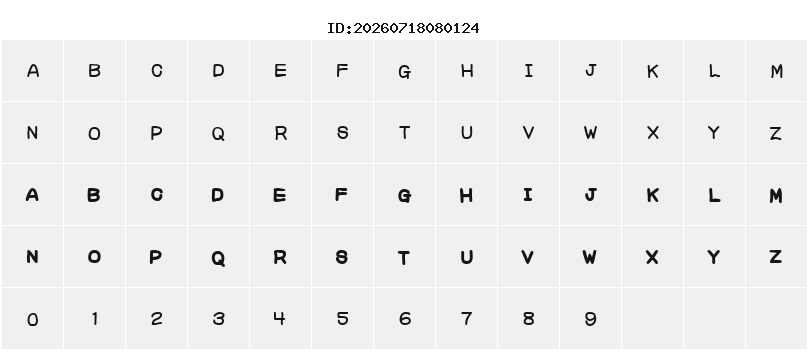
Charles Atlas Preview
• Font Name: Charles Atlas
• Full Font Name: Charles Atlas
About Charles Atlas.ttf
Charles Atlas.ttf is a modern, elegant sans-serif font designed for ultimate readability and visual harmony. Perfect for branding, headlines, web design, and print materials.